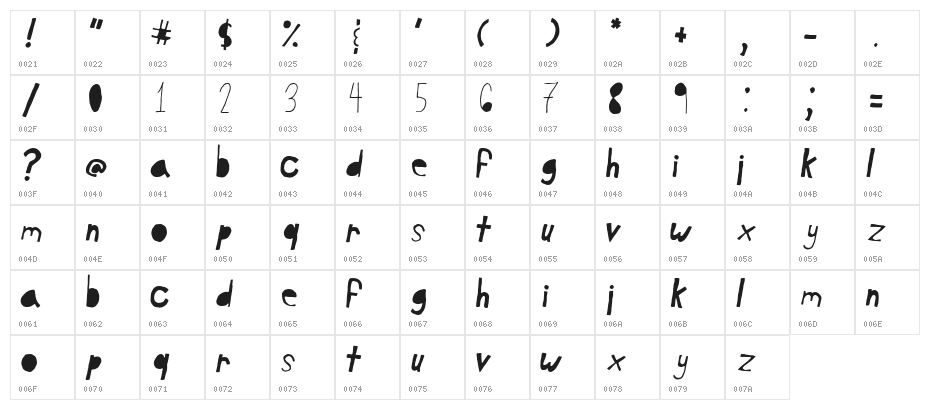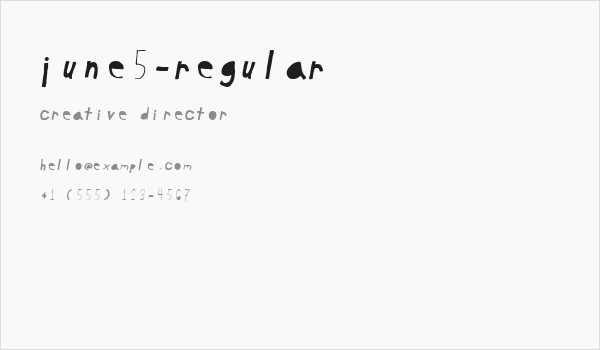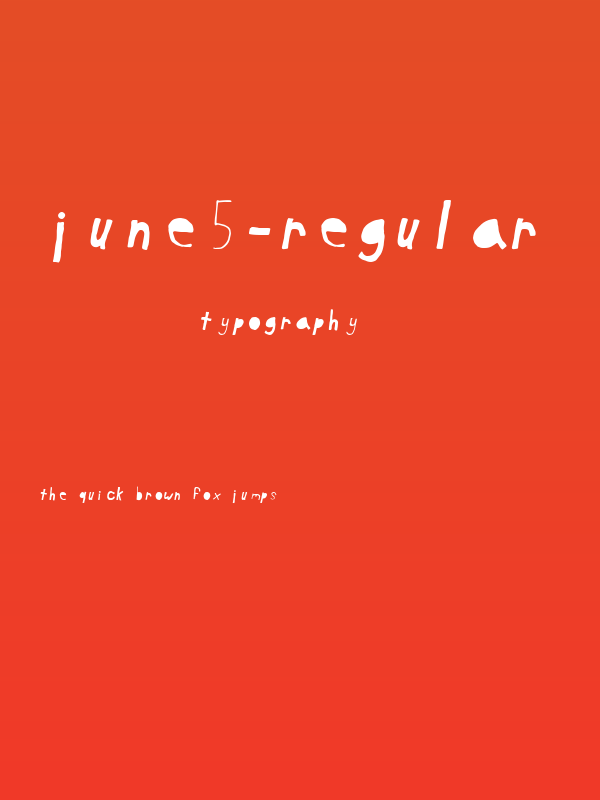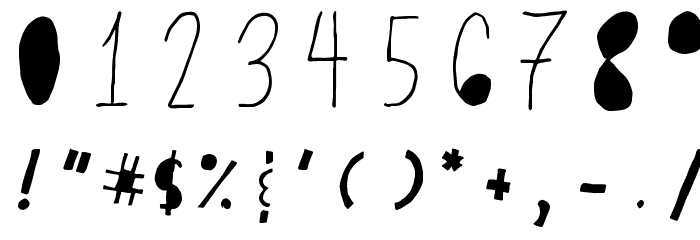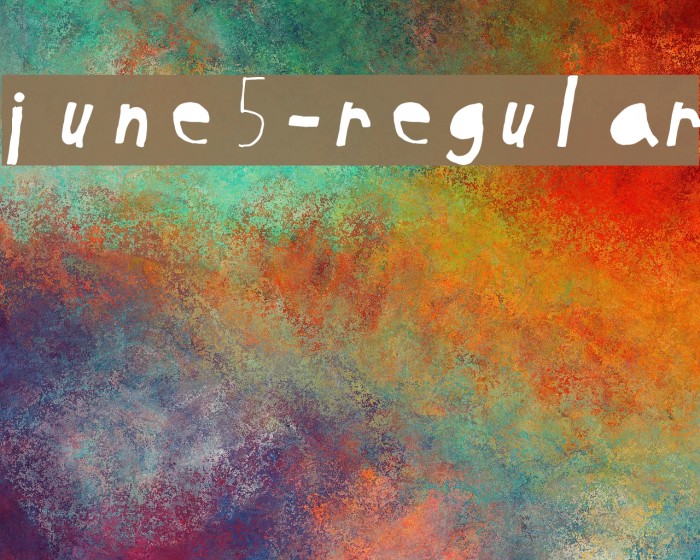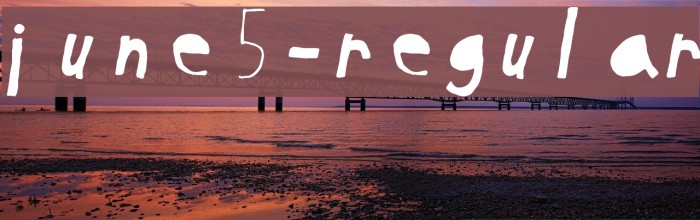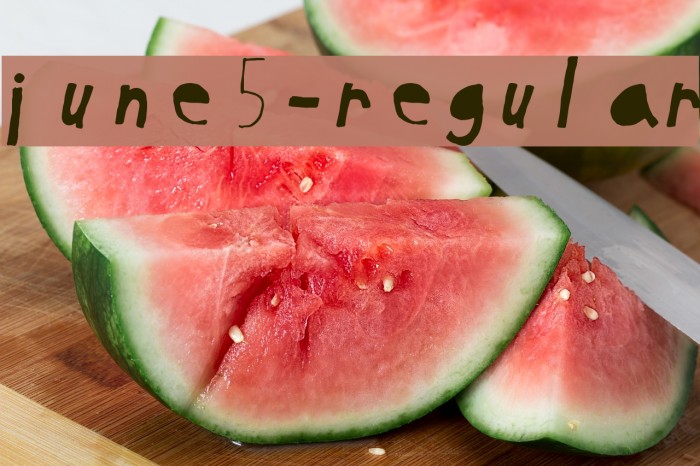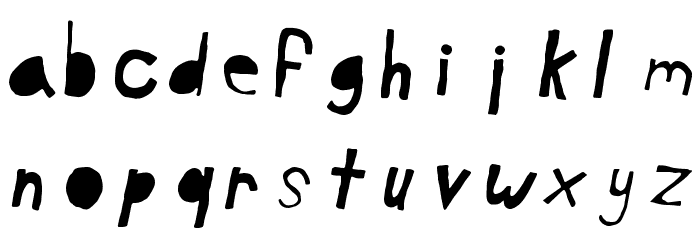
June5-Regular Font
June5-Regular Description
This font features a playful and irregular handwritten style, with each character exhibiting unique quirks and variations. The letters have a casual, informal appearance, with uneven strokes and varying thickness that give it a lively and dynamic feel. The lowercase letters are particularly distinctive, with some characters leaning slightly or having exaggerated curves. The numbers and special characters maintain the same whimsical style, adding to the font's overall charm. This font is perfect for projects that require a touch of personality and creativity, such as children's books, greeting cards, or artistic posters.
| Use Case | Headlines, Artistic projects, Informal text |
| Proposed Projects | Ideal for children's books, greeting cards, artistic posters, and creative projects. |